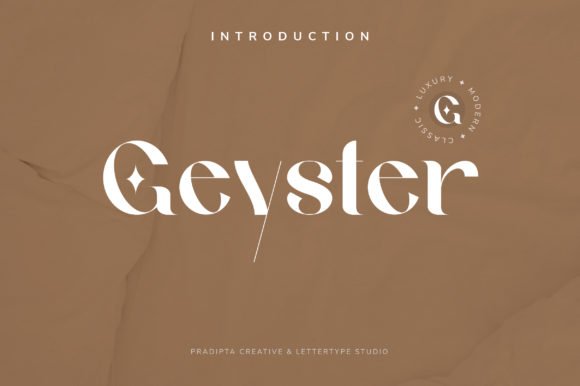
Introduction to Geyster Font
Geyster is a stylish and classic display font, featuring the perfect amount of trendiness.
Masterfully designed to become a true favorite, this font has the potential to bring each of your creative ideas to the highest level .